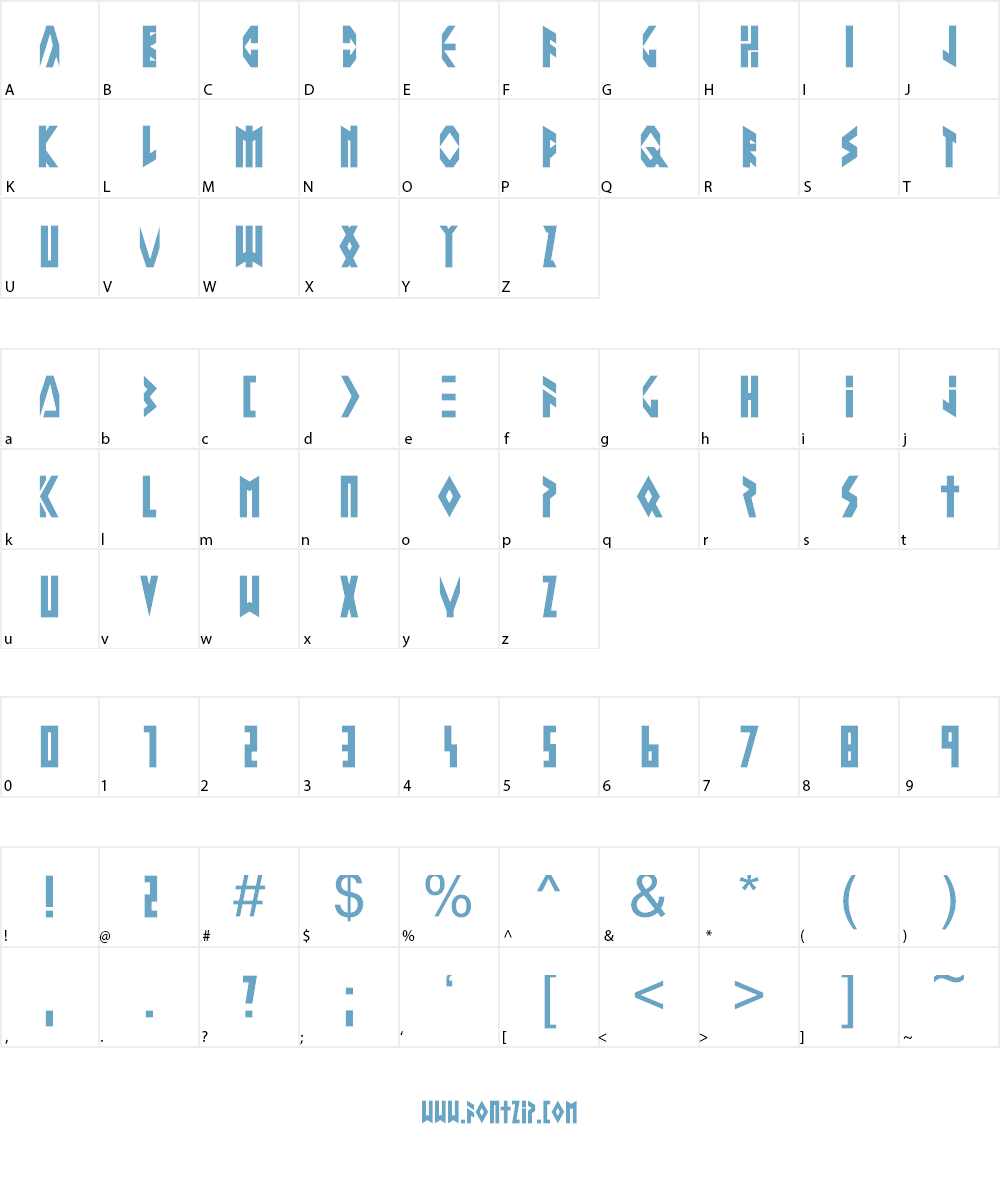
ALTERING THE FUTURE is an abstract font inspired by runes.
The height of the letters is fixed but Lowercase and uppercase has different versions of the characters what you can play with.
The name came from a title of a song from one of my favorite album : Death - Spiritual Healing